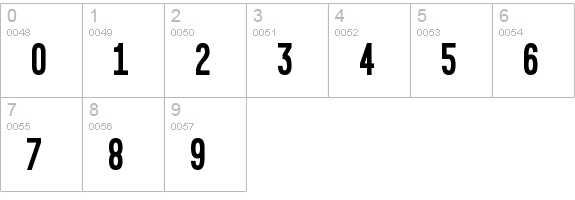
Go Long Font Details
Introducing Go Long font, a sleek and modern typeface that exudes elegance and sophistication. With its elongated letterforms and clean lines, Go Long is the perfect choice for projects that require a touch of refinement. This versatile font is ideal for a wide range of design applications, from logos to branding materials to editorial layouts. What's even better is that Go Long font is available for free download at FontsMarket.com! This means you can easily access this stylish typeface and incorporate it into your projects without any cost. Don't miss out on the opportunity to elevate your designs with the timeless charm of Go Long font. Download it today and let your creativity soar.